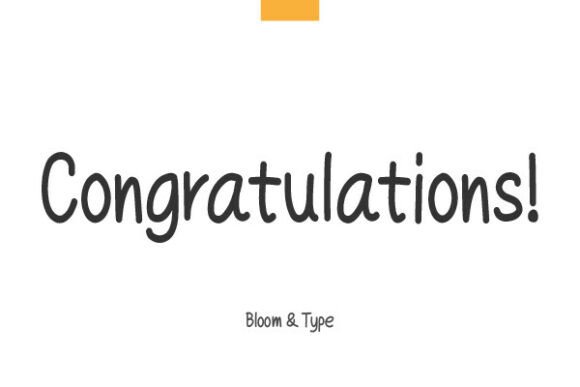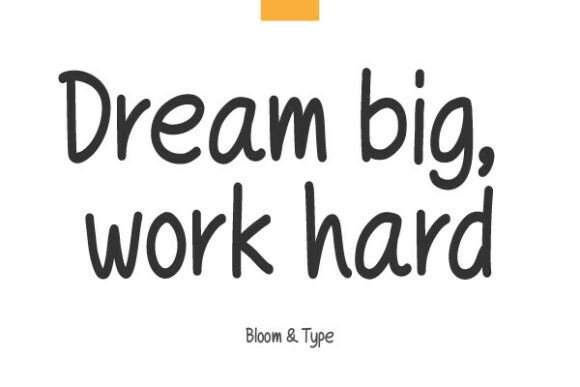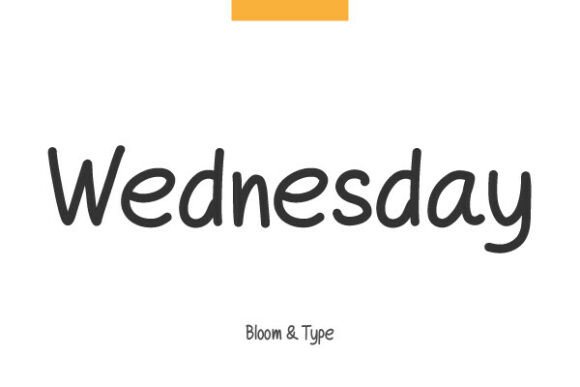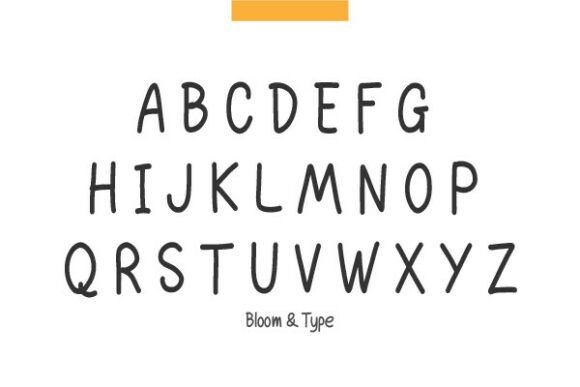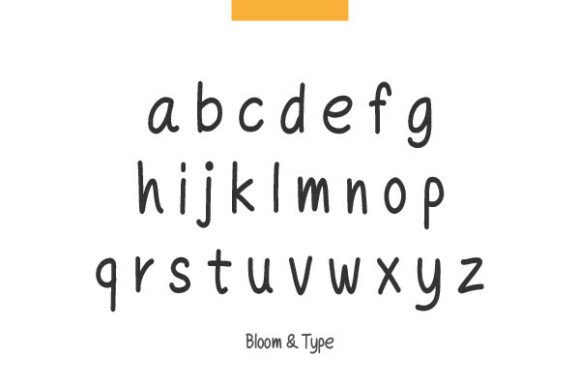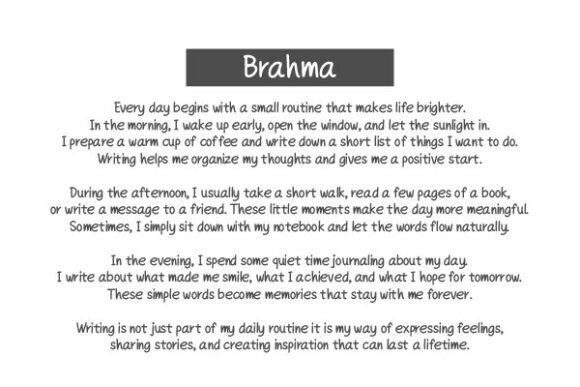
The Perfect Font to Bring Personality to Your Designs
There’s nothing quite like the thrill of bringing a design idea to life. You’ve spent hours brainstorming, sketching, and experimenting, and finally, you have a concept that you’re excited to share with the world. But, there’s one crucial element that can make or break the overall look and feel of your design: the font. A good font can elevate your message, convey your brand’s personality, and leave a lasting impression on your audience. That’s where the Brahma Font comes in – a clean and playful handwritten font designed to bring a natural and friendly touch to your creative projects.
Whether you’re a seasoned designer or a newcomer to the world of typography, the Brahma Font is a valuable addition to your toolkit. Its unique blend of rounded curves, smooth lines, and casual handwritten style makes it perfect for adding personality and charm to your designs. From logos and branding to packaging and social media graphics, the Brahma Font delivers a balance of simplicity and warmth that makes every design feel approachable and modern.
Brahma Font Key Features
- Font Family: Brahma is a sans-serif font family designed for digital use.
- Character Set: The font includes a wide range of characters, including Latin, Cyrillic, Greek, and Devanagari scripts.
- Size and Resolution: Brahma Font is designed to be scalable and legible at various resolutions, including HD (72 dpi), Retina (144 dpi), and 4K (288 dpi).
- Unique Characteristics: Brahma Font features a clean, modern design with a subtle geometric feel, making it suitable for a wide range of digital applications.
Brahma Font Review
I’ve had the chance to work with the Brahma font, and overall, I’m quite impressed. Here’s what I like about it:
- ✨ Unique design: Brahma has a distinctive, elegant look that sets it apart from other fonts. It’s perfect for projects where you want to add a touch of sophistication.
- ✨ Legibility: Despite its intricate design, Brahma is remarkably easy to read, even at smaller font sizes.
- ✨ Versatility: This font can be used for a wide range of applications, from headings and titles to body text and even logos.
- ⚠️ Limited character set: Brahma’s character set is relatively small compared to other fonts, which may cause issues if you need to use non-standard characters.
- ⚠️ May not be suitable for small text: While Brahma is legible, it may not be the best choice for small text sizes, as the details can get lost.
Overall, I think Brahma is a great addition to any designer’s toolkit. Its unique design and versatility make it a great choice for projects where you want to add some visual interest. Just be aware of its limitations and use it wisely.
Getting the Most Out of the Brahma Font
For the best results, use the Brahma font in bold or italic styles to add emphasis to your text.
Experiment with different font sizes to create visual hierarchy in your design.
The Brahma font is ideal for:
1. Creating elegant and sophisticated logos.
2. Designing high-end branding materials.
3. Adding a touch of luxury to your typography.
Alternatives to Brahma Font for Designers
Playfair Display is an elegant, high-end serif font suitable for luxury brands, fashion, and high-end publications. It features intricate details and classic charm, making it an excellent choice for designers looking to create a sophisticated and refined look.
Compared to Brahma Font, Playfair Display is more ornate and luxurious, while Brahma Font is more modern and clean. Playfair Display is ideal for creating a sense of grandeur and opulence, whereas Brahma Font is better suited for contemporary and minimalist designs.
Pacifico is a beautiful, cursive script font that exudes a sense of relaxation and calmness. It’s perfect for creating a beachy or tropical vibe in designs related to travel, wellness, and lifestyle.
Compared to Brahma Font, Pacifico is more fluid and organic, while Brahma Font is more geometric and modern. Pacifico is ideal for creating a sense of warmth and approachability, whereas Brahma Font is better suited for creating a sense of sleekness and sophistication.